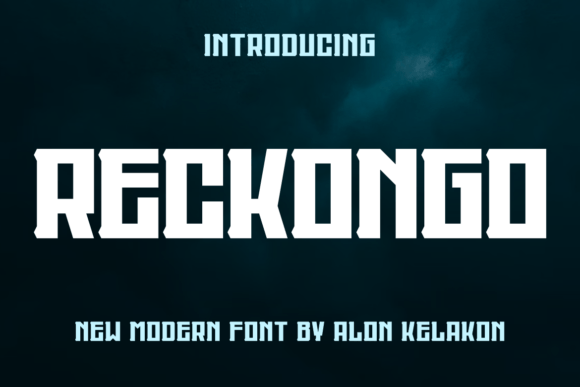
Introducing Reckongo Font, the epitome of modernity and uniqueness in the world of serif fonts. Designed by the brilliant mind of alonkelakon, this font is a must-have for anyone looking to add a touch of sophistication and creativity to their designs.
With its sleek and elegant appearance, Reckongo Font is ready to elevate your design projects to new heights. It is perfect for a wide range of applications, from labeling and clothing to movie scenes and posters. Imagine the impact it can create when used in movie titles, gigs, album covers, and logos. This font is a game-changer for any creative project that requires a touch of class.
One of the standout features of Reckongo Font is its versatility. It seamlessly blends with various design styles, adding a touch of modernity without overpowering the overall aesthetic. Whether you're aiming for a minimalist look or a bold and eye-catching design, Reckongo Font has got you covered.
This font is not just visually appealing; it also evokes emotions and captures attention. Its captivating curves and carefully crafted letterforms will leave a lasting impression on your audience. With Reckongo Font, your designs will effortlessly stand out from the crowd, grabbing the attention of potential customers and clients.
Reckongo Font is more than just a typeface; it's a powerful tool that helps you communicate your brand's personality and values. It exudes professionalism, elegance, and creativity, making it the perfect choice for modern logos. You can trust this font to bring your brand identity to life, leaving a lasting impression on your target audience.